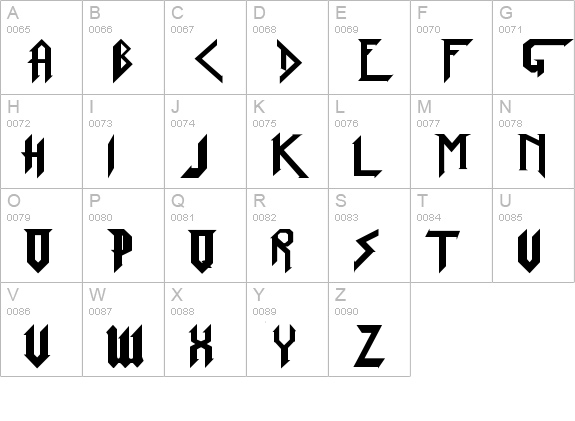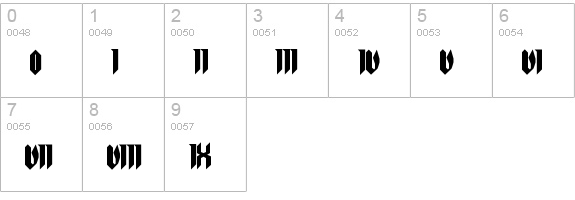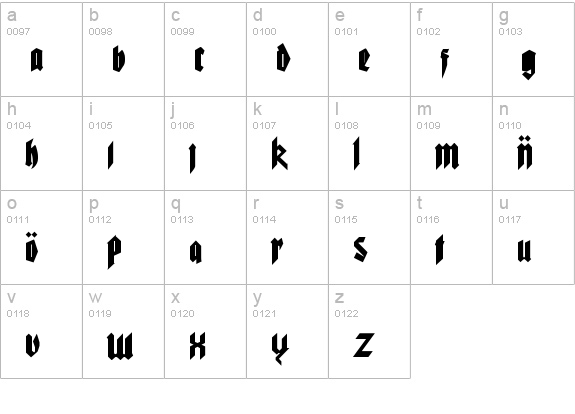
Pure evil 2 Font Details
Introducing Pure Evil 2 font, a striking and menacing typeface that exudes a sense of malevolence and darkness. This font is perfect for creating designs that need a touch of wickedness and edginess. With its sharp angles and bold strokes, Pure Evil 2 font commands attention and leaves a lasting impression. What sets Pure Evil 2 font apart is its versatility - it can be used for a wide range of projects, from posters and flyers to logos and social media graphics. Its unique design adds a touch of drama and intensity to any design, making it perfect for projects that require a bit of attitude. And the best part? Pure Evil 2 font is free to download at FontsMarket.com. So unleash your creativity and add a dose of darkness to your designs with this captivating font. Download Pure Evil 2 font today and let your imagination run wild!